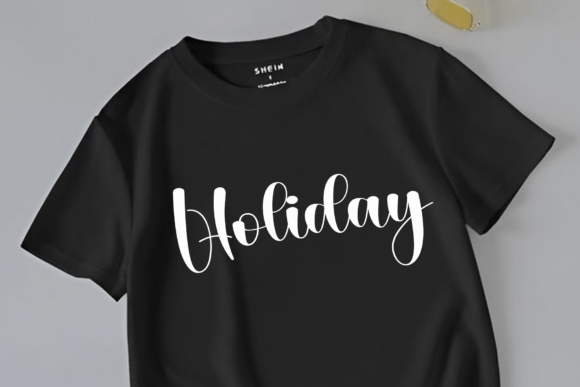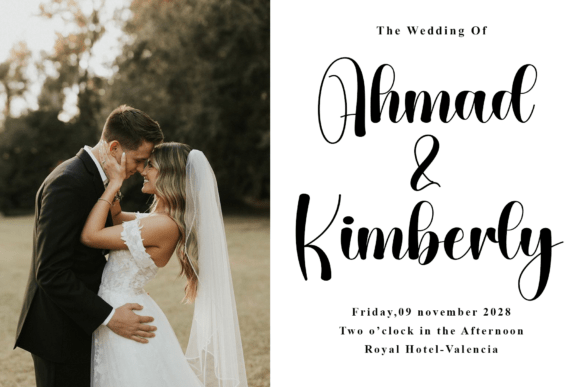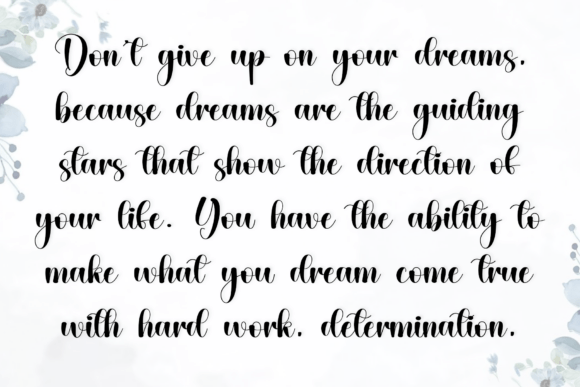
Introduction to September Holiday Font
Have you ever stared at a blank canvas, trying to decide on the perfect font for your creative project? The blank page can be intimidating, but sometimes all it takes is the right design resource to spark your imagination. For those looking to add a touch of elegance and sophistication to their work, the September Holiday Font is an excellent choice.
With its stunning, handwritten style, the September Holiday Font is perfect for wedding invitations, thank you cards, quotes, and more. Its high-quality design and PUA encoding make it easy to access all of the glyphs and alternates, giving you complete control over your creative project. Whether you’re working on a logo, business card, or greeting card, this font is sure to elevate your design to the next level.
Key Features of September Holiday Font
- Unique, hand-drawn design perfect for creative projects and special occasions, such as holiday cards and invitations.
- High-quality, transparent background allowing for easy customization and blending with any design.
- Includes a comprehensive character set, including uppercase and lowercase letters, numbers, and special characters.
- Designed as a versatile design resource for various creative projects, from graphic design to digital art.
Honest Review: September Holiday Font
I recently had the chance to work with the September Holiday Font, and I must say it’s been a game-changer for my creative projects. The font’s unique, playful design makes it perfect for any project that requires a touch of whimsy.
What works well: ✨ High-quality design, ✨ Transparent background, and ✨ versatility in terms of usage. This font can be used for a variety of creative projects, from invitations to signage, and even digital media. The free download option is also a major plus, making it accessible to designers on a budget.
Some limitations: ⚠️ Limited character set, ⚠️ not ideal for body text due to its playful nature, and ⚠️ may not be suitable for formal or professional projects.
Overall, I’m really impressed with the September Holiday Font. Its high quality and versatility make it a valuable design resource. While it may not be perfect for every project, it’s definitely worth having in your font library. If you’re looking for a fun and unique font for your next creative project, I’d definitely recommend giving it a try.
- Perfect for creative projects that require a playful touch
- High-quality design and transparent background
- Limited character set
- Not ideal for body text or formal projects
Tips for Getting the Most Out of the September Holiday Font
The September Holiday Font is a high-quality design resource that can add a touch of elegance to your creative project. To get the most out of it, use it on a transparent background to give your design a clean and modern look. You can also use it in combination with other design elements to create a unique and eye-catching design.
The September Holiday Font is perfect for use in a variety of creative projects, including holiday-themed designs, social media graphics, and blog posts. It’s also a great resource for designers who want to add a touch of sophistication to their designs.